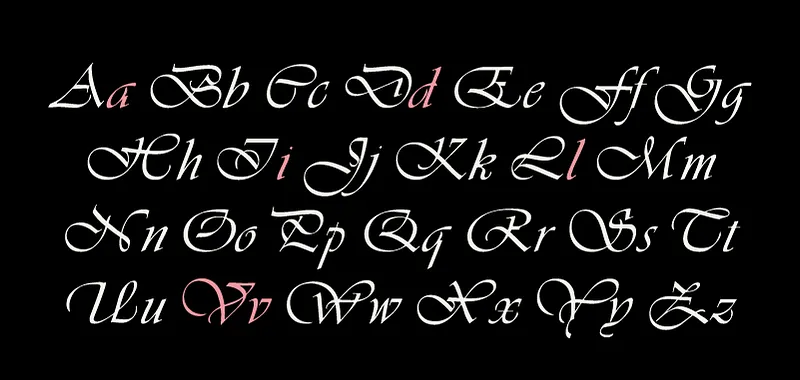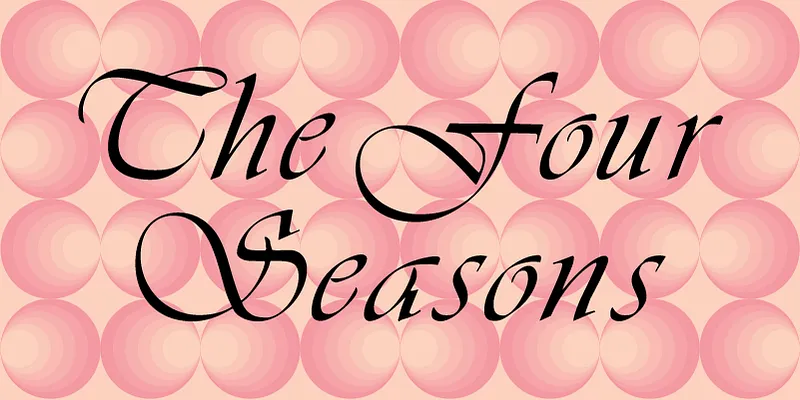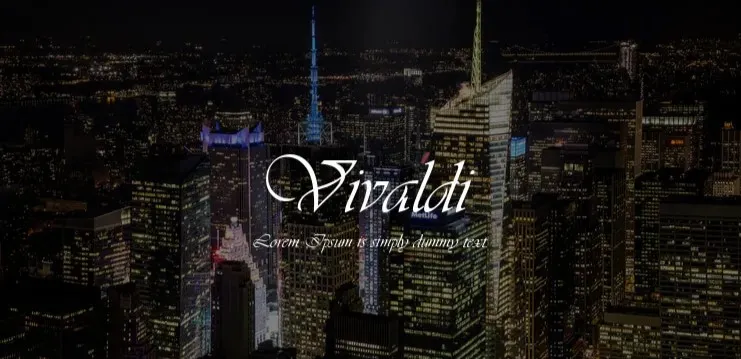
Vivaldi Italic font is the stylish and fancy font typeface which is best for the poster, signs, lettering arts, branding design, and more.
Design Of Vivaldi Italic Font
Vivaldi Italic font is among the coolest fonts on hand. It is characterized via lengthy legs and much extended. Every character used to be personally made in Illustrator using normal geometric shapes.